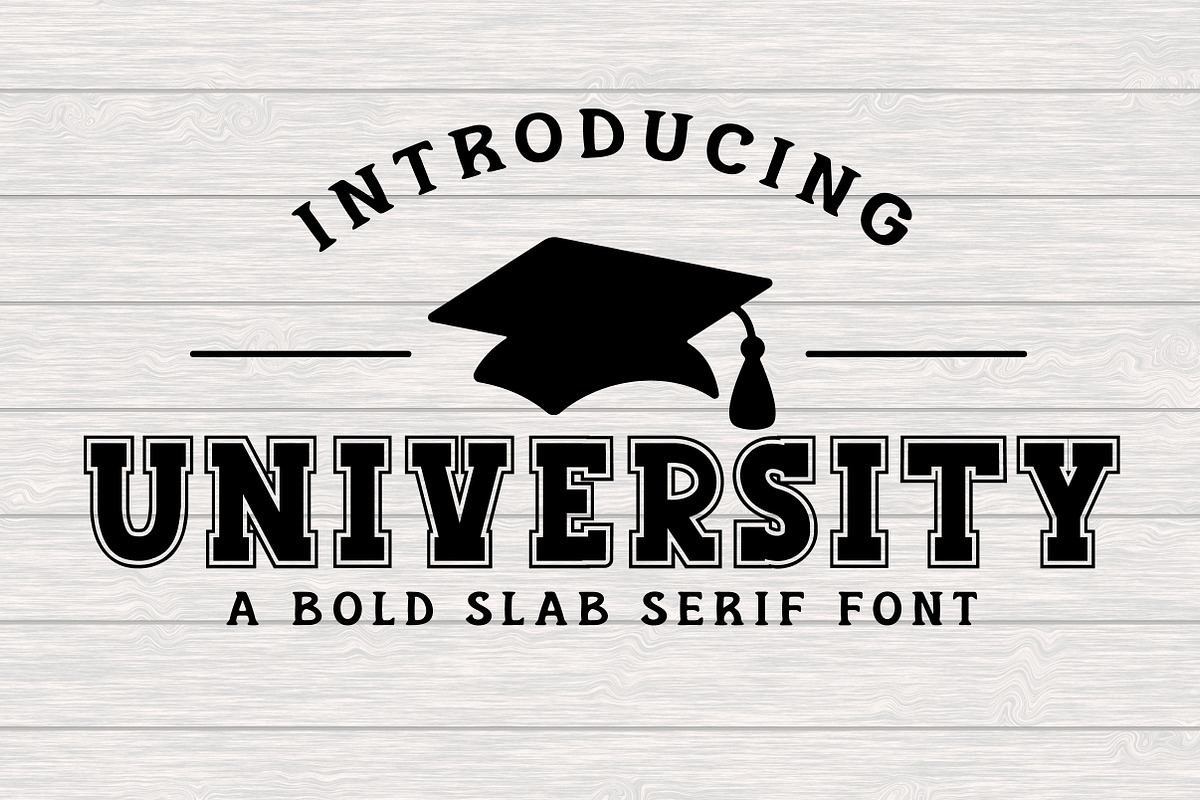
University Font Free Download is a classic typeface designed by Geronimo Font Studios, reminiscent of traditional collegiate lettering. This font is ideal for projects that aim to capture an academic or old-school aesthetic, such as school projects, sports team logos, and vintage-themed designs.
University Font features bold, block-style letters that convey a sense of tradition and authority. Its design is well-suited for creating impactful headlines, banners, and apparel graphics.